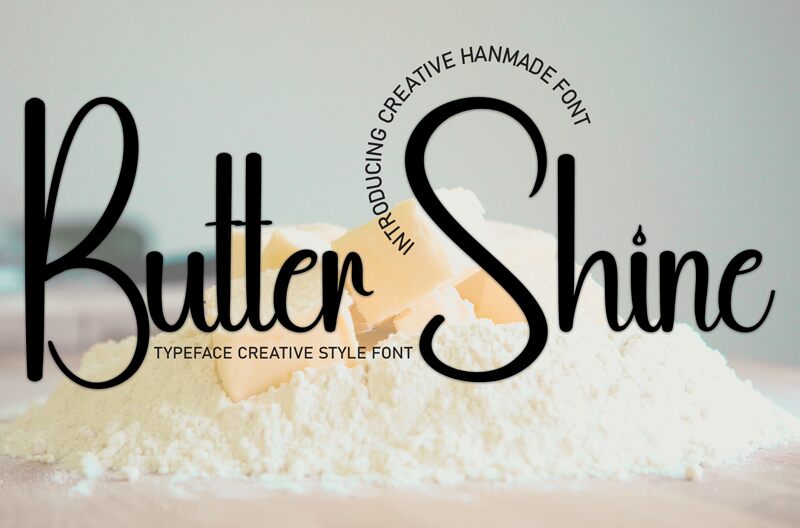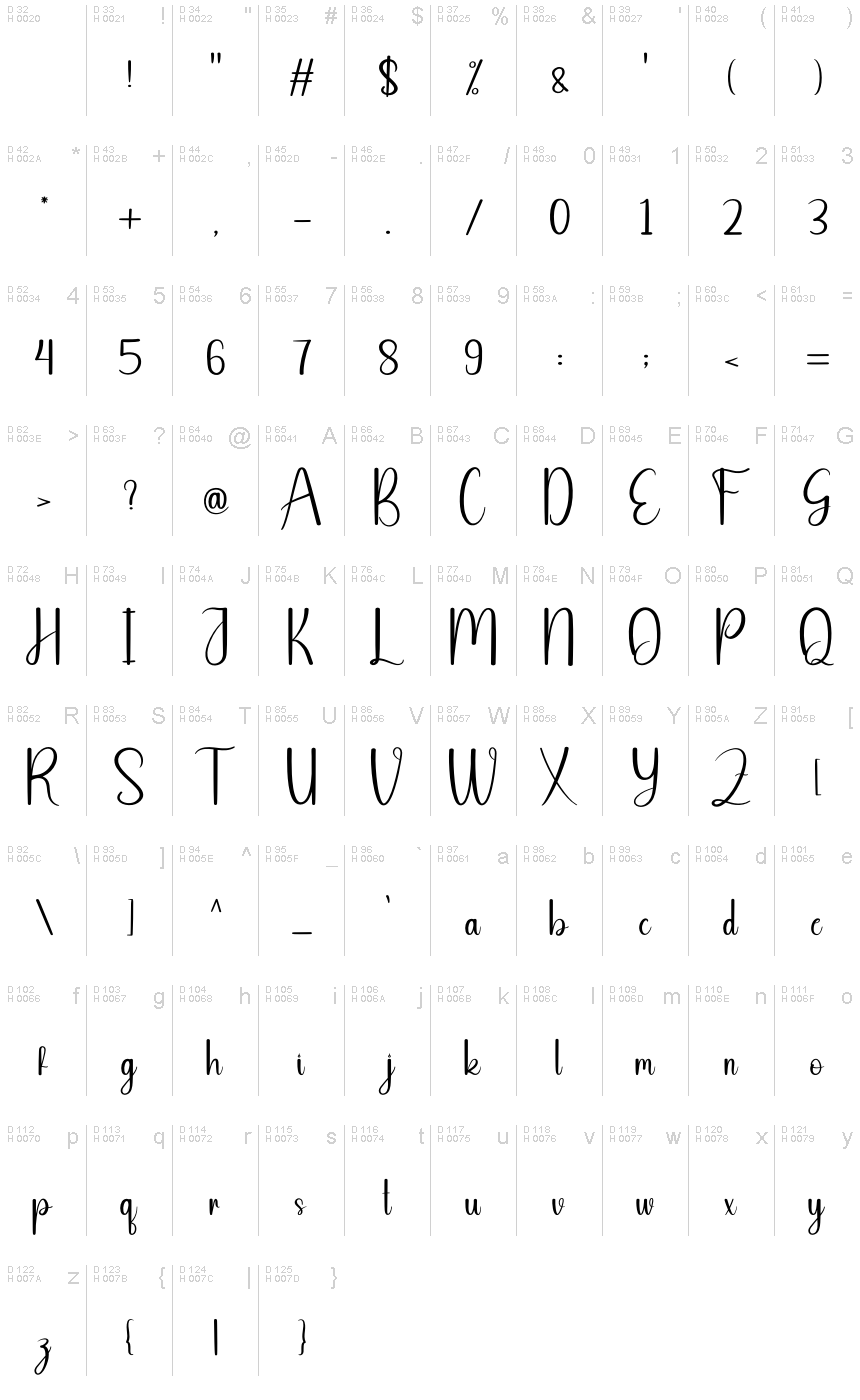
Butter Shine
Butter Shine is a captivating handwritten font that effortlessly blends elegance and charm. Inspired by the natural flow of calligraphy, its graceful strokes and distinctive flourishes create a sense of warmth and artistry. The font's unique character is particularly evident in the interplay between the thick and thin lines, which lend a sense of depth and dynamism to the text.
Butter Shine's versatility makes it an excellent choice for a wide range of design applications, from high-end branding to charming wedding invitations. Its expressive quality can add a touch of sophistication and personality to headlines, subheadings, and even body text, making it a versatile tool for designers seeking to elevate their projects.